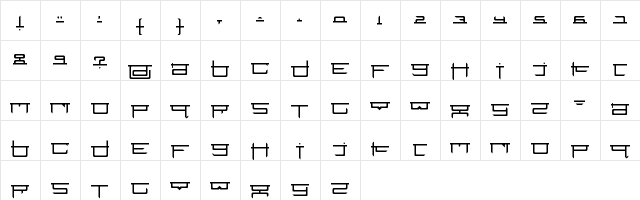
Jap-Karen 3 Regular
Design Context for Jap-Karen 3 Typeface
Jap-Karen 3 is a composed and adaptable typeface that performs quietly and consistently across a wide range of design contexts.